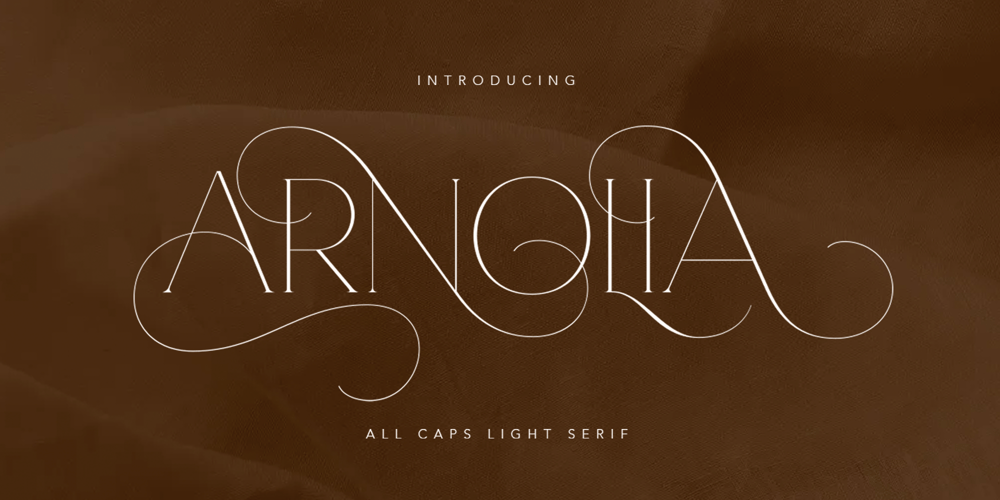
Arnolia Font Family was designed by Sarid Ezra, Dzikrul Aulia and published by Bale Type. Arnolia contains 1 styles and family package options. Arnolia is an all caps light serif with bunch of ligatures and alternates. You can use this font for any project especially for project that need to looks elegant and luxurious. With different height from the uppercase and lowercase will make your design more stunning. Combine the ligatures and alternates with the regular base to get the best appearance. This font also support multi language!